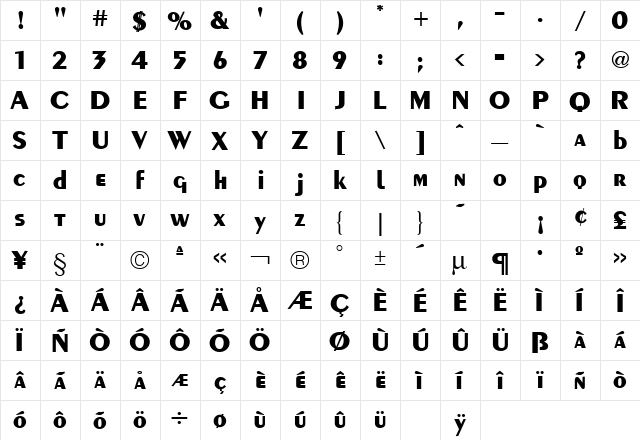
Piano Bold Font Preview
Piano Bold
Piano Bold Font Details
Design Context for Piano Typeface
Piano offers clean, dependable letterforms without strong stylistic allegiance, making it a practical choice for designers who need flexibility. The heavy weight commands attention and anchors typographic hierarchies.